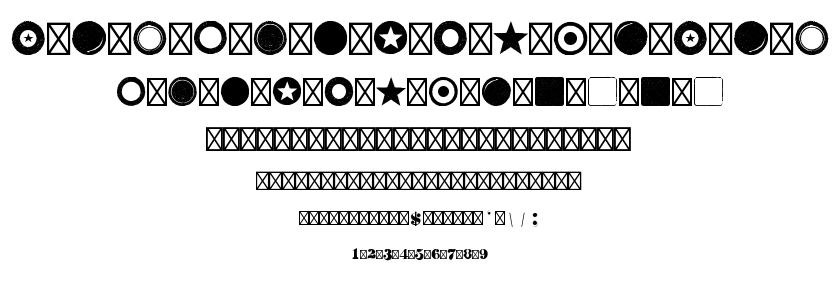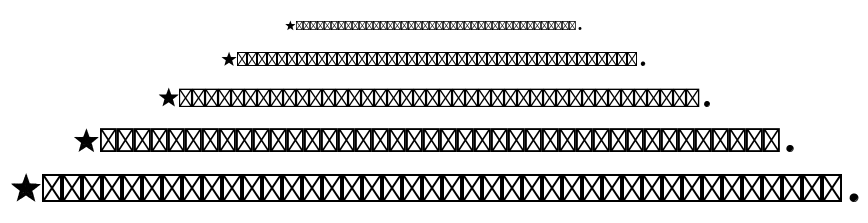
Dauber Hand Numerals
Dauber Hand Numerals is a new free nummerical font commissioned by Sky Bingo (http://www.skybingo.com). It’s a vingtage inspired font inspired by Bingo cards, signs and numbers from years gone by.